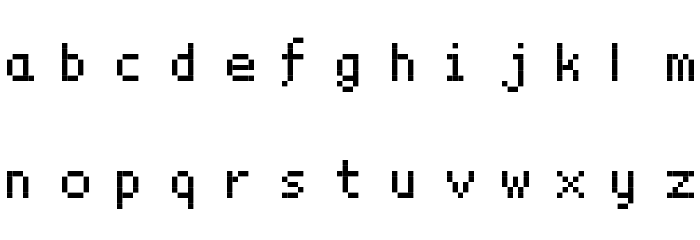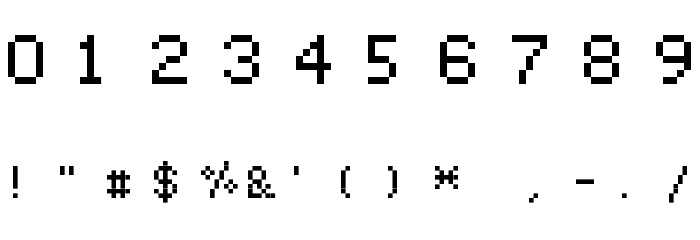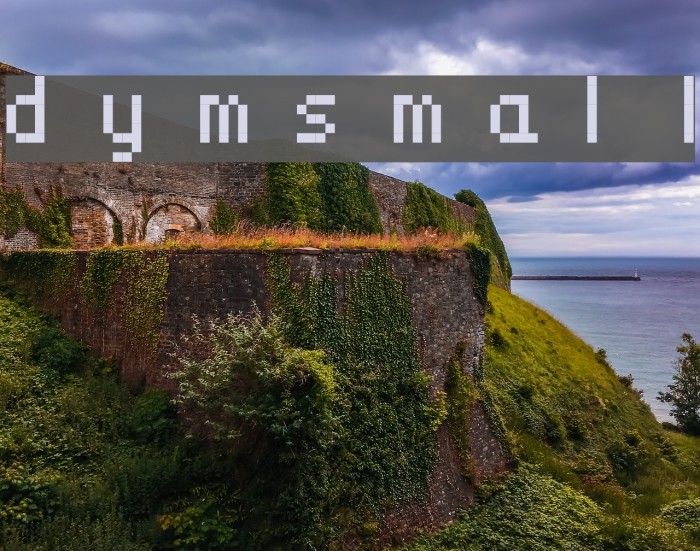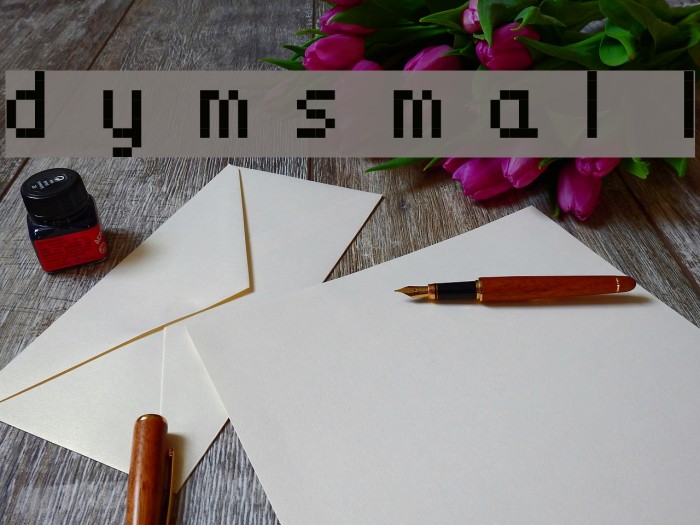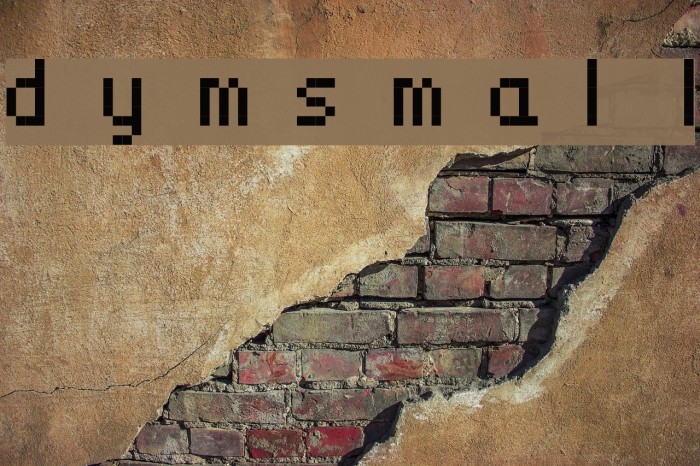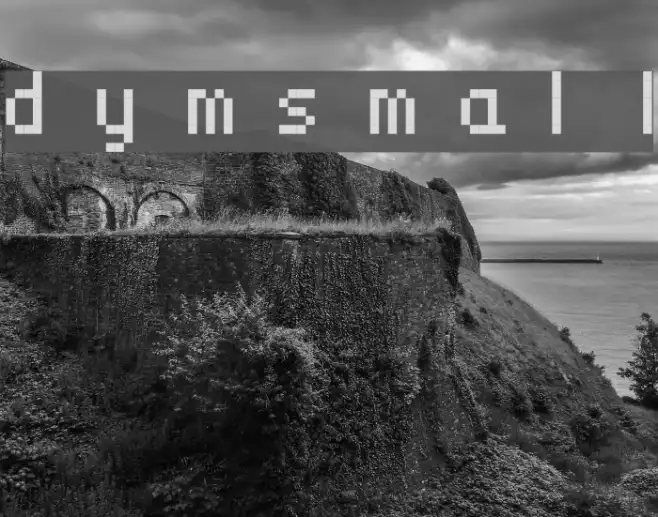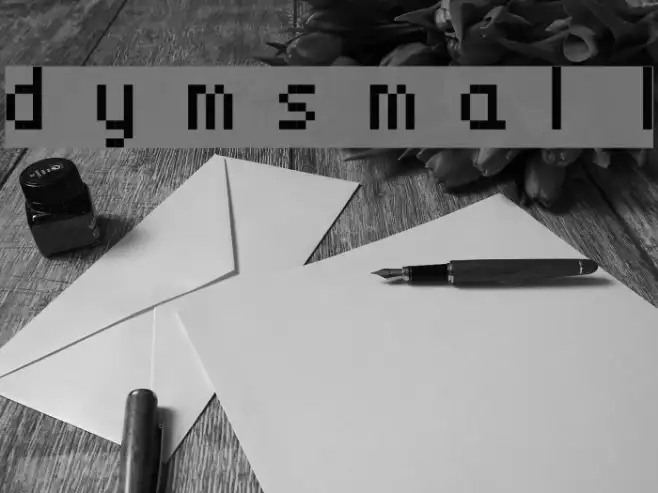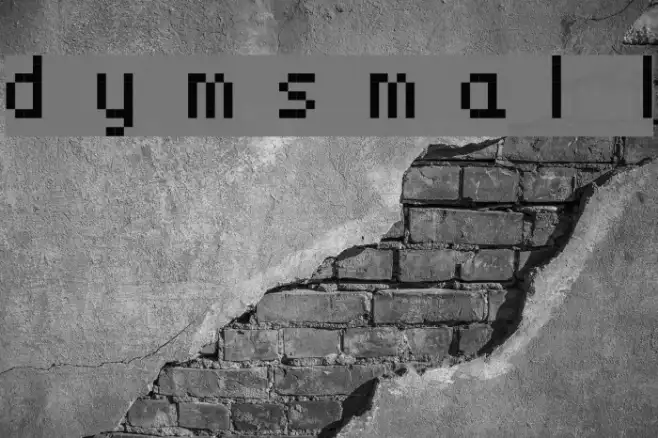
dymsmall Font
This font exhibits a pixelated, monospaced style reminiscent of early digital displays and retro computing. Each character is constructed with a grid-like precision, giving it a distinctly mechanical and uniform appearance. The uppercase and lowercase letters maintain consistent height and width, contributing to its blocky and structured look. The numerals and special characters follow the same design principles, ensuring a cohesive visual experience. This font's simplicity and clarity make it ideal for contexts where readability and a vintage digital aesthetic are desired.
A pixelated, monospaced font with a retro digital style.
- Proposed Projects: Ideal for retro-themed designs, video game interfaces, coding environments, and digital art projects.
- Overall Style: Vintage
- Use Case: Headlines, Digital displays, Coding